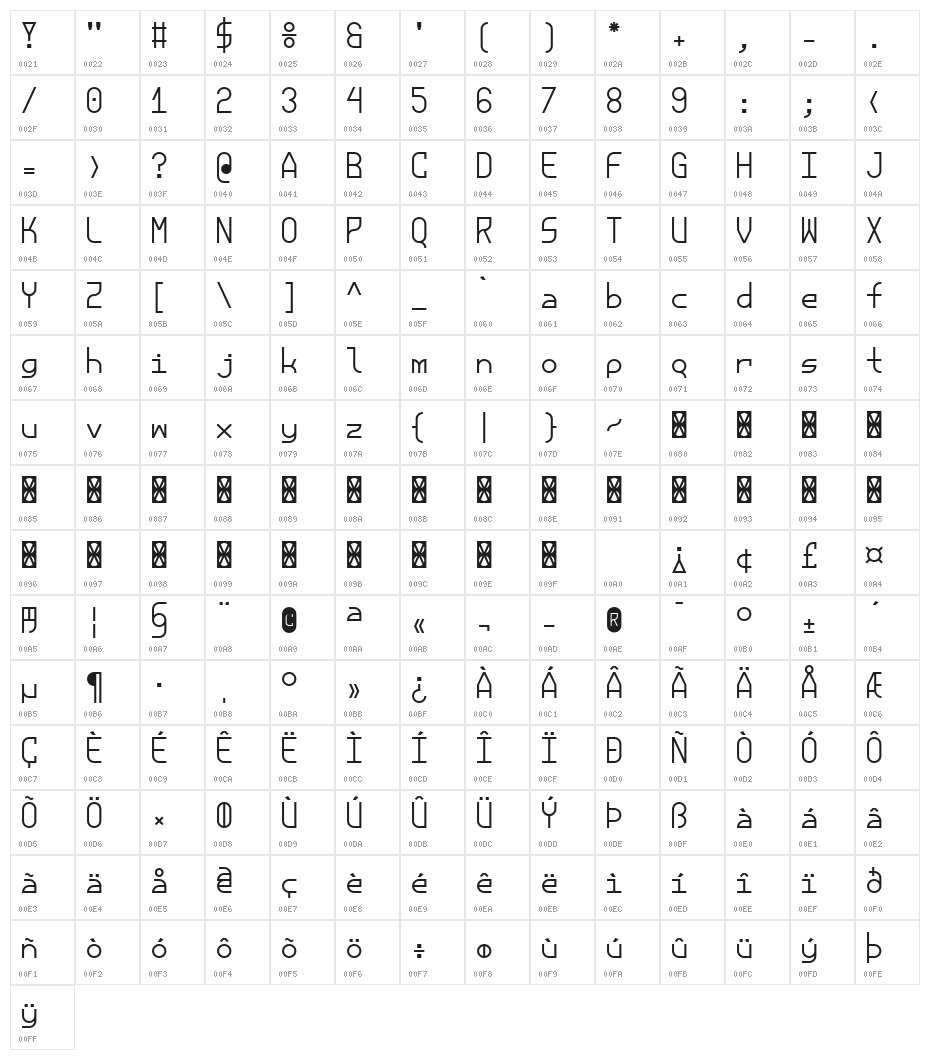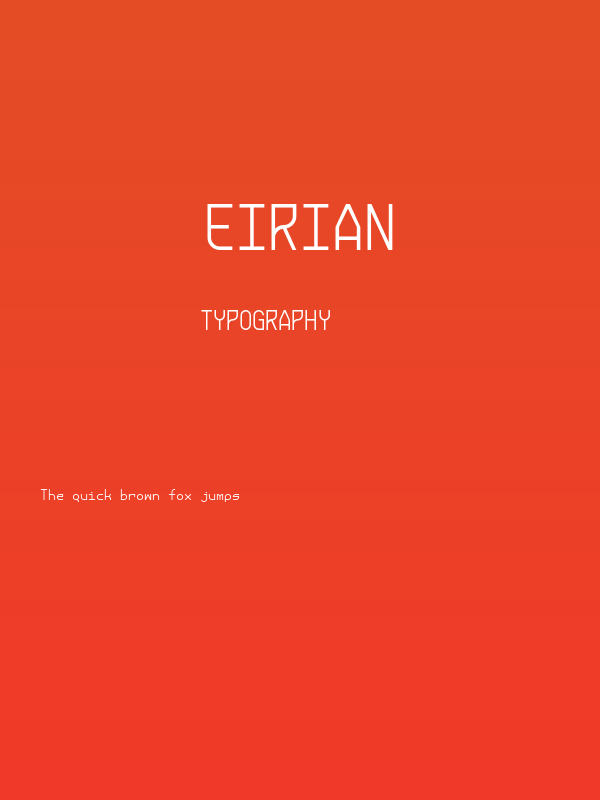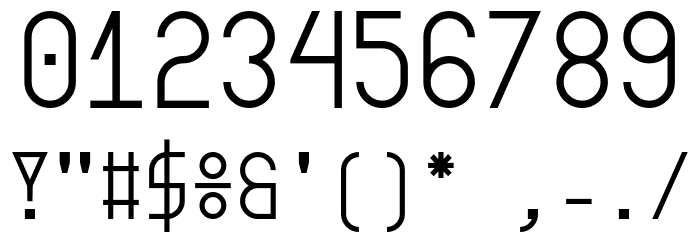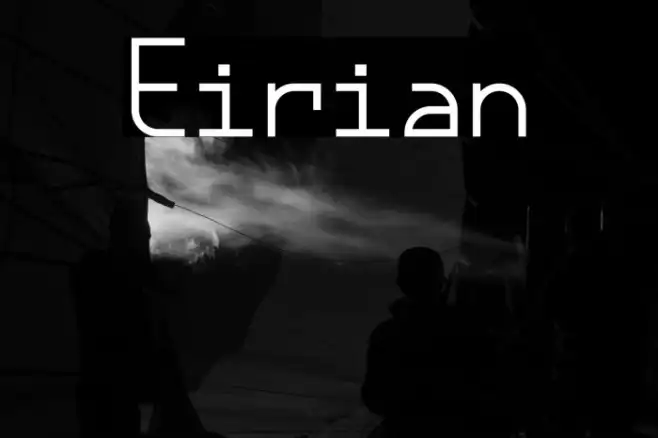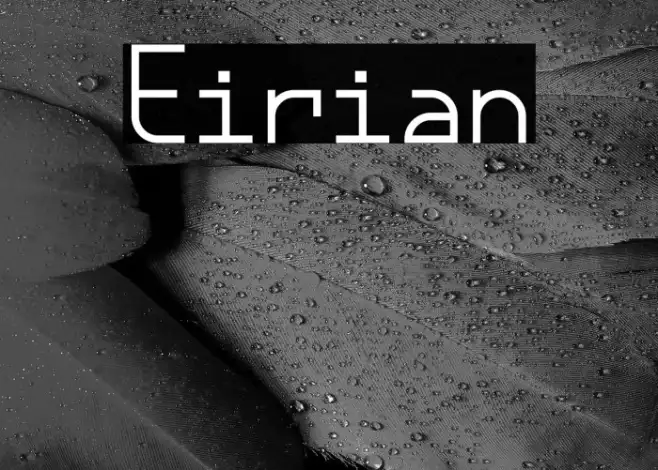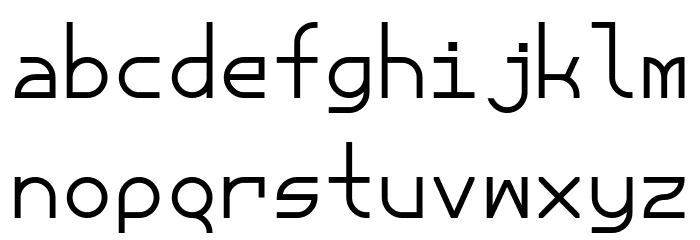
Eirian Font
Eirian Description
This font features a geometric and modern design with clean, straight lines and rounded edges. The uppercase letters are uniform in height, creating a cohesive and structured appearance. The lowercase letters maintain a similar style, with a slight variation in height and width, adding a touch of elegance. The numerals are consistent with the overall geometric theme, providing clarity and readability. Special characters are designed with the same attention to detail, ensuring they blend seamlessly with the rest of the font. The overall look is sleek and contemporary, making it suitable for a variety of design projects.
| Use Case | Headlines, Logos, Digital media |
| Proposed Projects | Ideal for branding, advertising, digital media, and modern web design. |